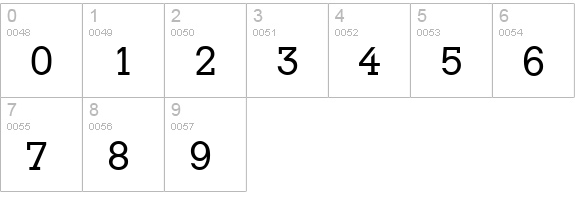
Hanseat Font Details
Hanseat font is a beautifully crafted typeface that exudes elegance and sophistication. With its clean lines and classic design, this font is perfect for adding a touch of timeless charm to any project. The Hanseat font features a perfect balance between modernity and tradition, making it versatile for a wide range of design applications. This font is available for free download on FontsMarket.com, making it easily accessible for designers and creatives looking to enhance their projects with a touch of sophistication. Whether you're working on branding, editorial design, or any other creative endeavor, the Hanseat font is sure to elevate your work with its timeless appeal.